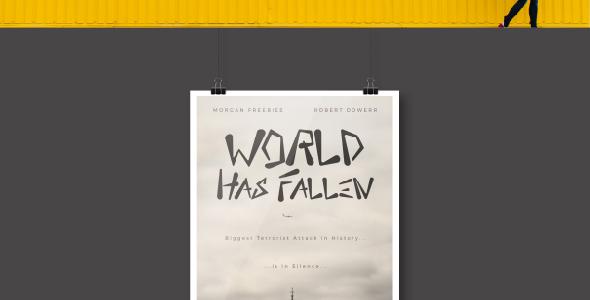
Godsmith Typeface
Introducing Godsmith Typeface, a display font with strong, rough and messy vibe. Use it for logos, cd cover, book cover title, movie poster, clothing, badge, label, etc. Godsmith Typeface contains: uppercase, lowercase, numbers and punctuations What’s included in the download pack: -Various font formats (ttf, otf, eot, woff, woff2) -AI files -EPS files If there’s anything you’d like to ask, feel free to contact me Enjoy!